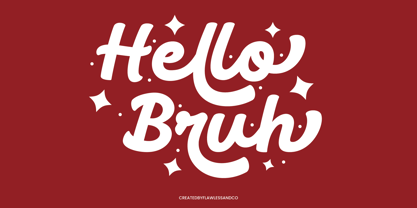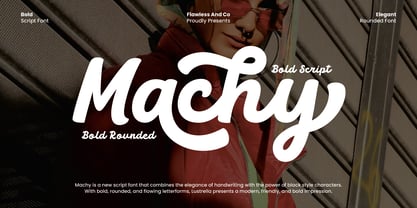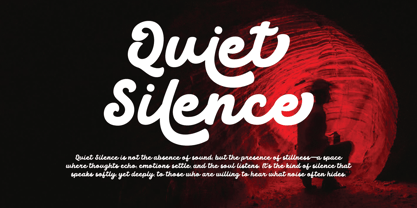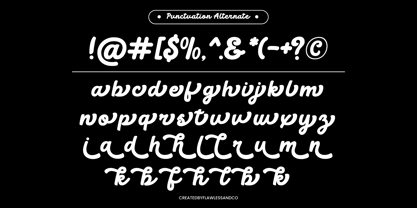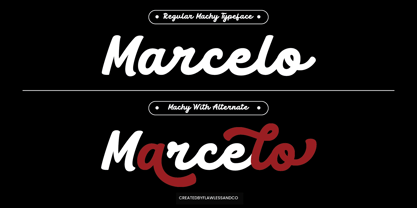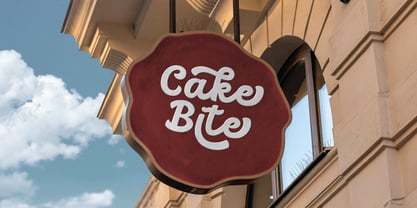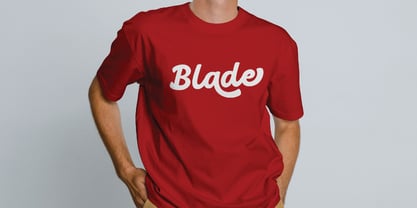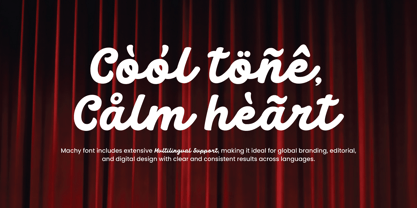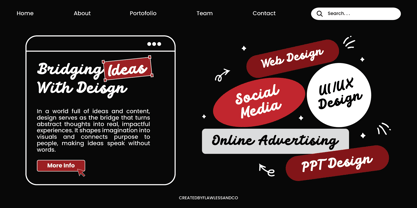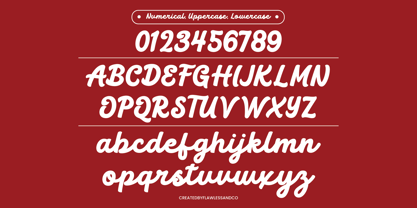
Machy
La familia tipográfica Machy fue diseñada por Achmad Yani y publicada por Flawlessandco. Machy contiene 1 estilos. Más información sobre esta familia
Machy is a bold script font that blends strength with smooth, flowing curves. Designed to exude confidence and personality, it offers a handcrafted feel while maintaining a modern edge. The bold weight ensures high visibility, while the script style adds elegance and charm—making it perfect for designs that need both impact and style.
Features :
Multilingual, Uppercase alphabet A-Z, Lowercase alphabet a-z, Numbers 0-9, Some punctuation, Alternates & Ligatures